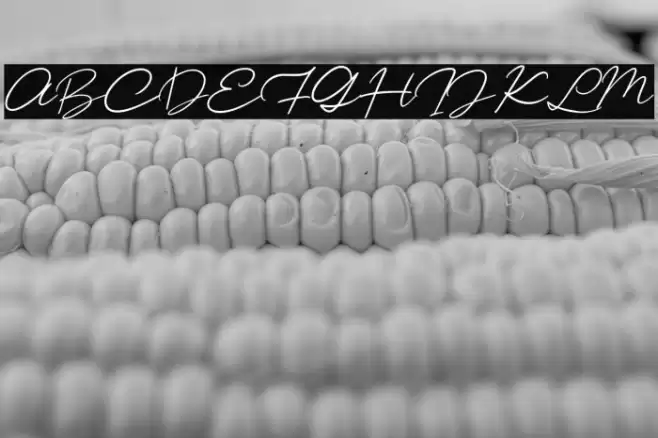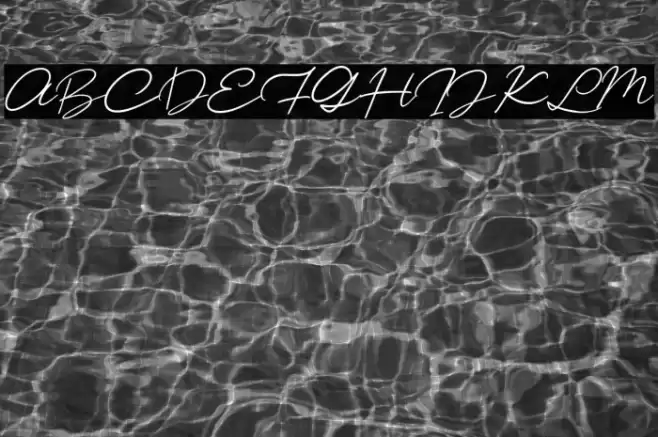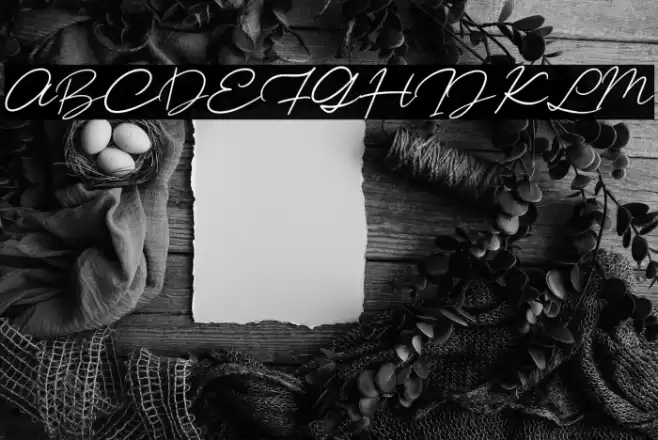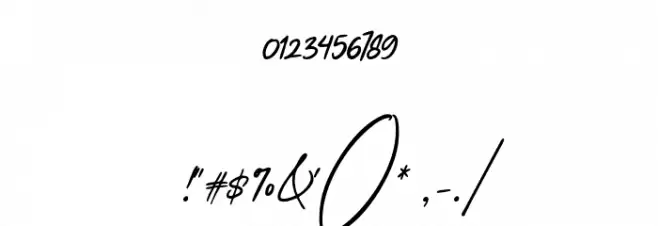
CitanyaScriptdemo-Regular Font
CitanyaScriptdemo-Regular Description
This elegant script font features flowing, interconnected letters that mimic the fluidity of cursive handwriting. The uppercase letters are ornate and sweeping, with a distinct flair that adds a touch of sophistication. The lowercase letters maintain a consistent style, with smooth curves and delicate strokes. The numerals are clear and maintain the script style, ensuring readability. Special characters are thoughtfully designed to match the overall aesthetic, making this font ideal for creative and decorative purposes.
An elegant, flowing script font with interconnected letters and a sophisticated style from Uncategorized fonts.